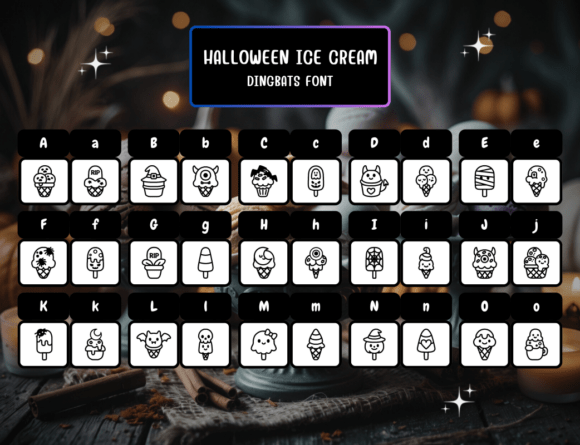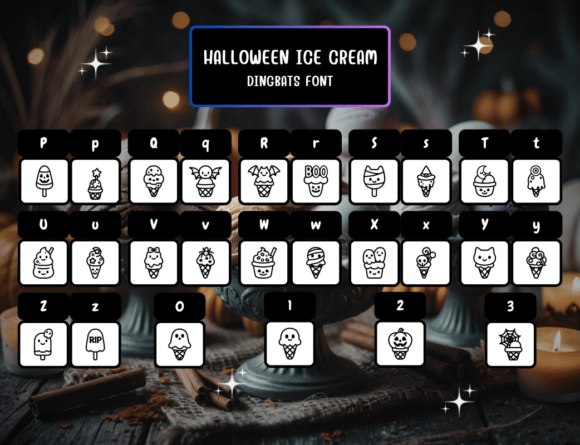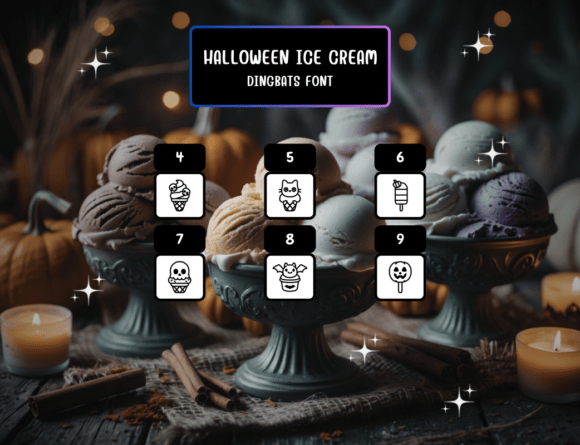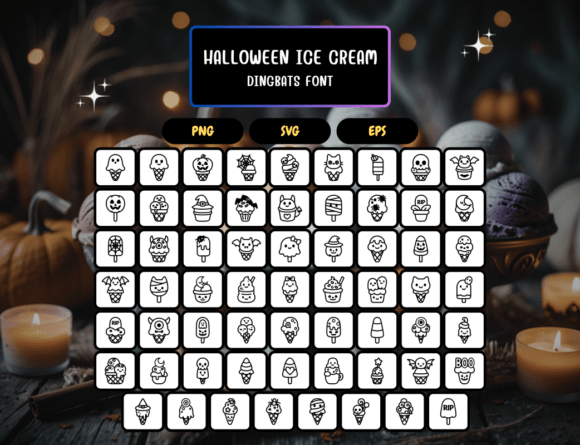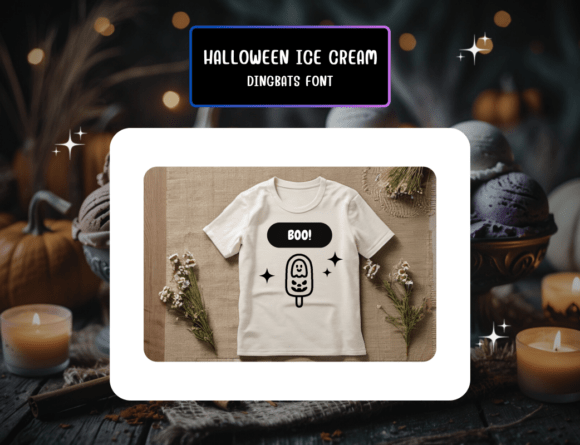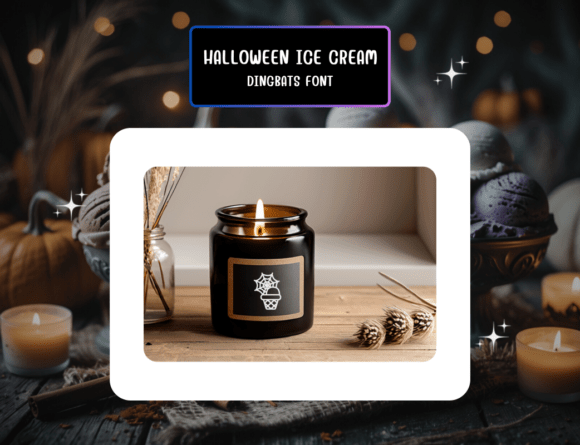
Introduction to Halloween Ice Cream Font
As a designer, there’s nothing quite like the thrill of creating a new project that sparks imagination and joy. And for many of us, Halloween is the perfect time to unleash our creativity and bring a touch of spooky sweetness to our designs. That’s why we’re excited to introduce you to the Halloween Ice Cream Font, a playful and quirky dingbat font that’s sure to add a delightful twist to your creative projects.
Whether you’re designing for Halloween parties, seasonal branding, or DIY crafts, this font brings together the best of both worlds – the whimsy of ice cream and the spooky charm of Halloween. With its unique illustrations of pumpkins, bats, ghosts, and more, the Halloween Ice Cream Font is the perfect design resource for adding a high-quality, seasonal touch to your work.
Key Features of Halloween Ice Cream Font
• High-quality, unique design perfect for creative projects, especially those related to Halloween, ice cream, or desserts.
• Features a transparent background, allowing for seamless integration with your design elements.
• Has a high-resolution design, ensuring it looks great on various screens and devices.
• Available in a range of sizes, from 100 to 1000 points, making it versatile for different design applications.
• Unique, hand-crafted design elements, including ice cream cones, spiders, and jack-o-lanterns, to add a creative touch to your projects.
Honest Review: Halloween Ice Cream Font
I recently came across the Halloween Ice Cream Font and was immediately drawn in by its unique design. As a designer, I appreciate high-quality design resources that can elevate my creative projects.
Here are some things that work well about this font:
• ✨ Unique and playful design that’s perfect for Halloween-themed projects
• ✨ Comes in a variety of styles and weights to suit different design needs
• ✨ Transparent background, making it easy to layer with other design elements
• ⚠️ Limited character set, which may not be suitable for longer blocks of text
• ⚠️ Not ideal for body text, as it can be difficult to read in certain font sizes
Halloween Ice Cream Font
Tips for Getting the Most Out of the Halloween Ice Cream Font
For best results, use the Halloween Ice Cream Font in conjunction with other design elements, such as images and graphics. Experiment with different font sizes and colors to create a unique and eye-catching design.
The Halloween Ice Cream Font is perfect for:
• Spooky-themed designs, such as Halloween party invitations or decorations.
• Food-related designs, such as ice cream shop logos or menus.
• General design projects, such as posters or flyers.